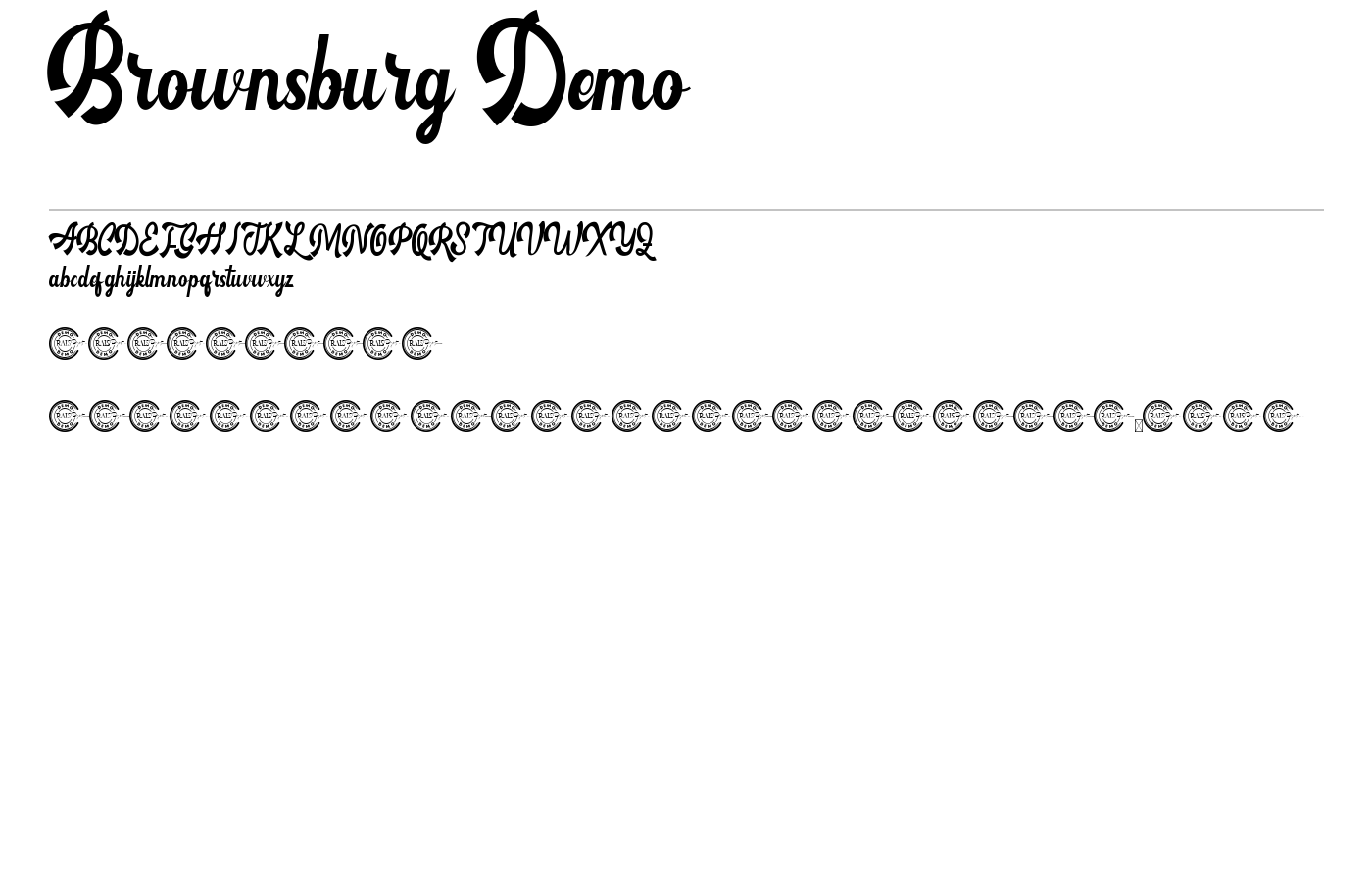
Brownsburg Demo is a bold, script-style font featuring a distinctive vintage vibe with its thick and flowing strokes. It combines a calligraphic flair with strong, curved letterforms that give it a playful yet elegant personality, making it ideal for retro branding, posters, and eye-catching headlines. This font best suits designs that aim for a nostalgic or handcrafted feel while maintaining readability and visual impact.
Brownsburg Demo Font
About Brownsburg Demo Font
| Font family | Brownsburg Demo Font |
| Release date | 2021-09-29 |
| Designer | Widiyanti & Sarah SP |